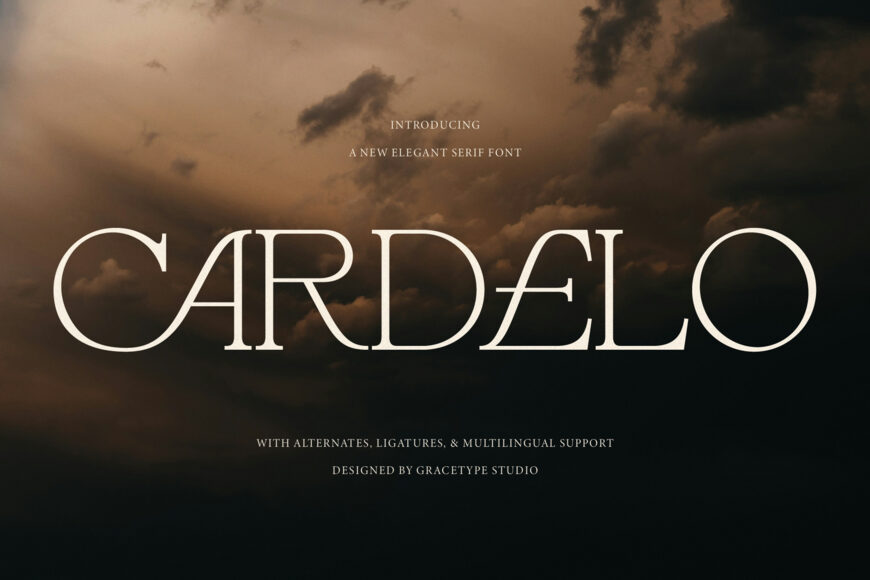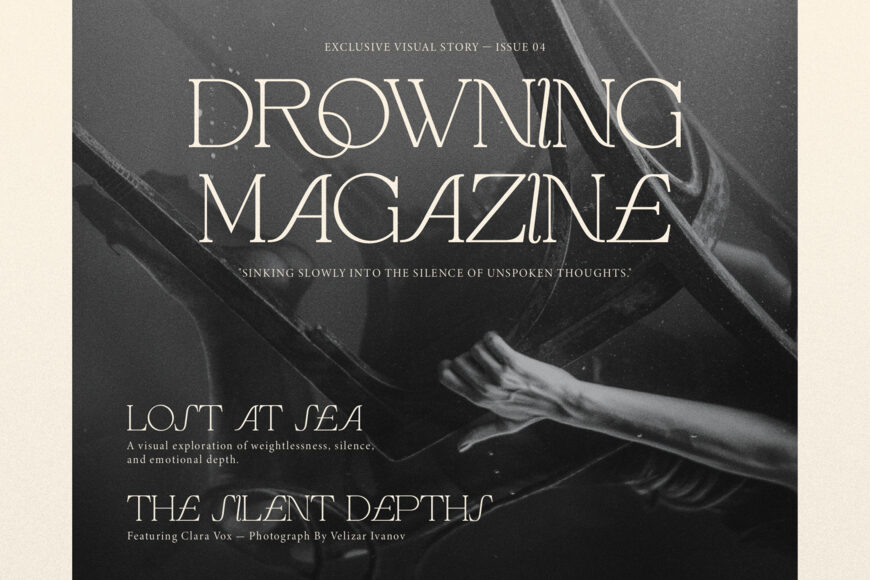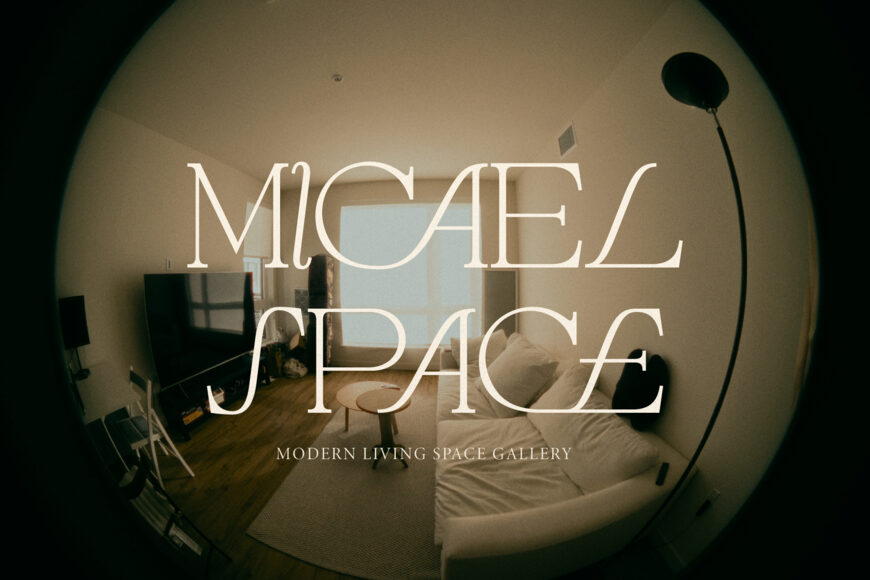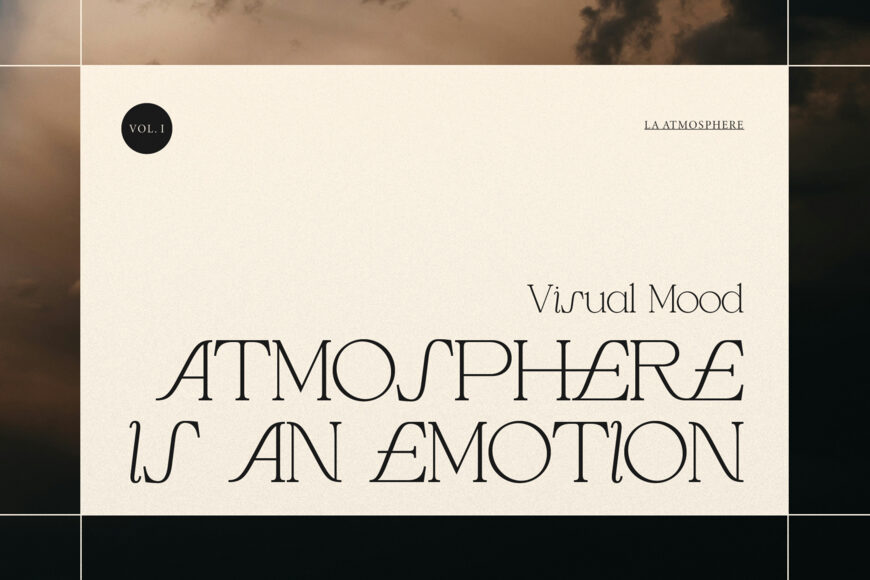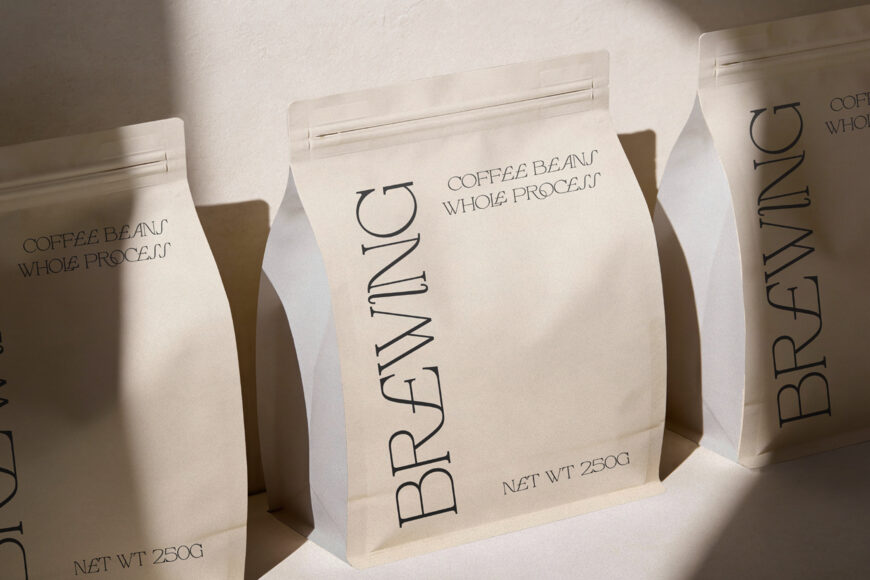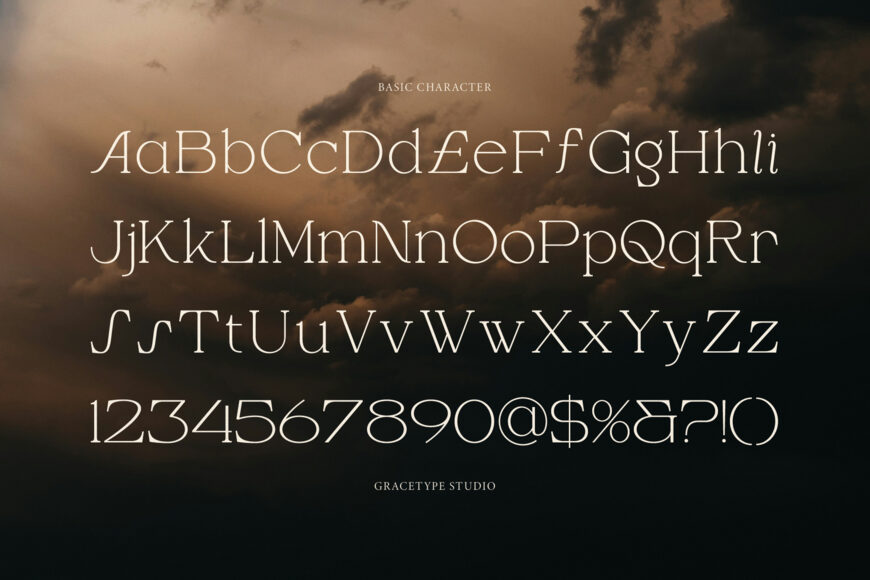
Cardelo Font
Define high-fashion drama, timeless luxury, and artistic editorial poise with CARDELO! This magnificent display serif pairs sweeping wide proportions with thin hairlines, razor-sharp serifs, and expressive custom alternate characters—like the flowing diagonal leg on the ‘R’ and the striking crossbar accent on the ‘E’.
Ideal for luxury brand identities, high-fashion magazine covers, boutique packaging, haute couture logo marks, architectural signage, and elevated social media design!